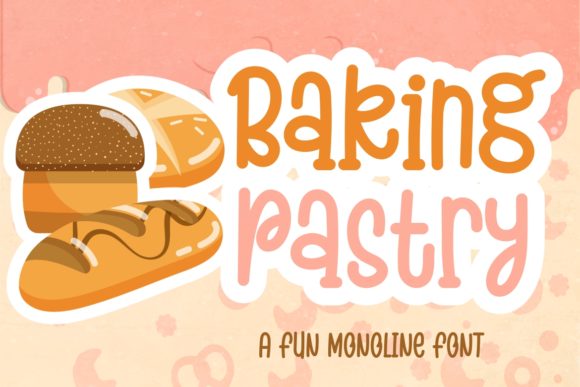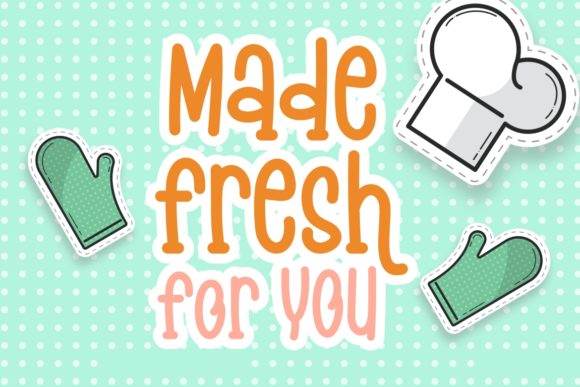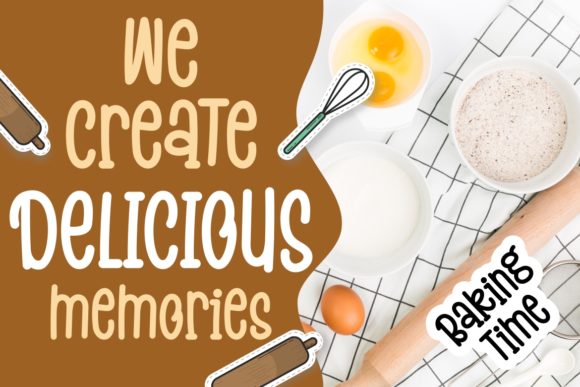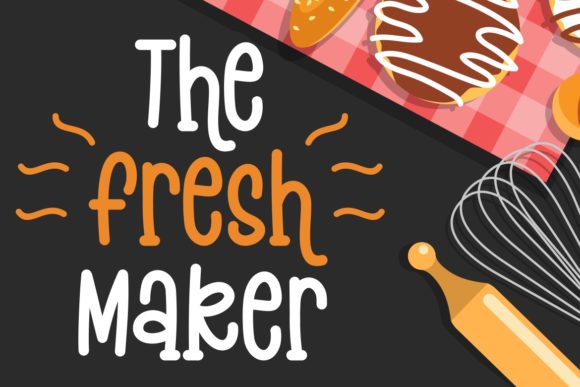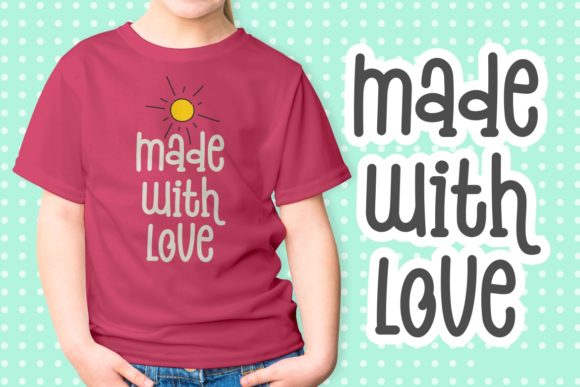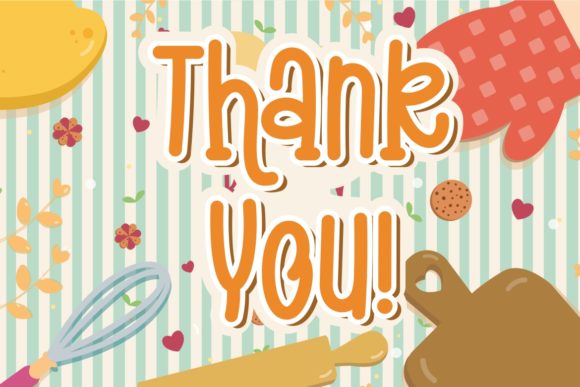
Baking Pastry Font
About Baking Pastry Font
Baking Pastry is a fun and cute handwritten font carefully created with a clean line. Fall in love with its authentic feel and use it to create gorgeous wedding invitations, beautiful stationary art, eye-catching social media posts, and cute greeting cards.